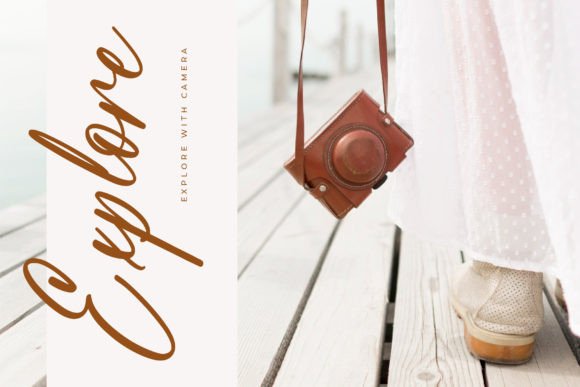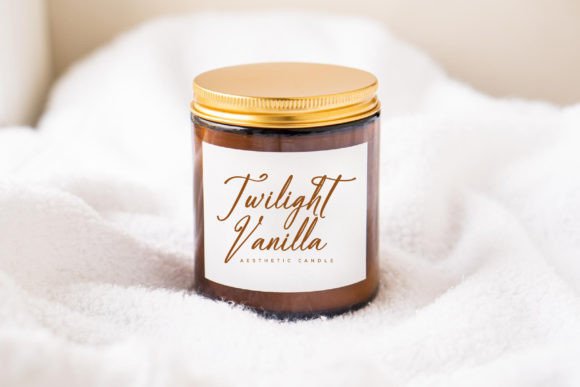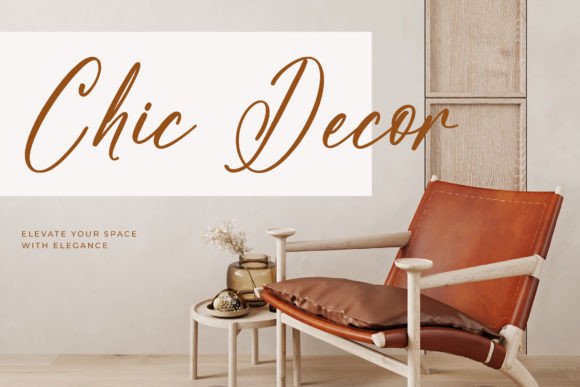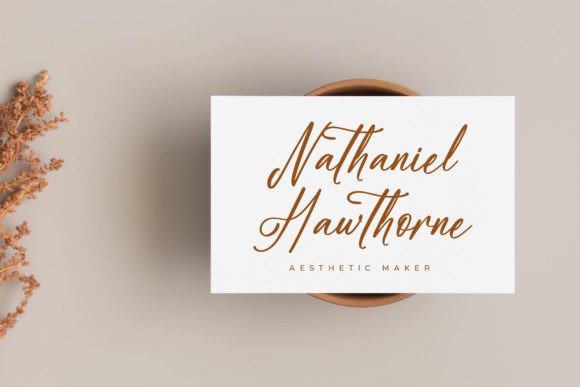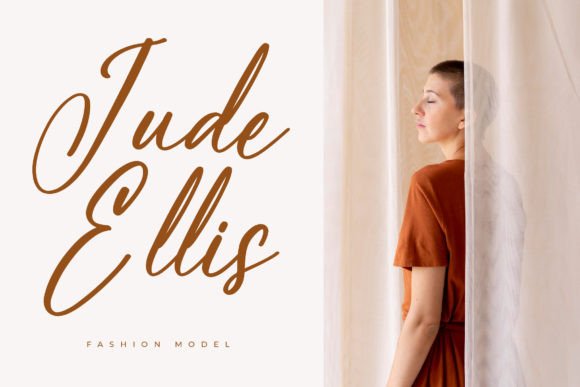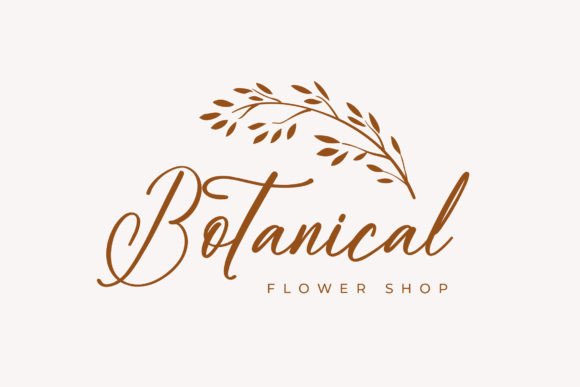
Celestialo Majestica Font: Elevate Your Designs with Luxury and Elegance
In the world of typography, a font can make or break a design. For designers and crafters seeking to add a touch of luxury and sophistication to their projects, the Celestialo Majestica Font is an exceptional choice. This modern freestyle script font, crafted by Letterena, is designed to bring a sense of elegance and refinement to a wide range of applications.
What is Celestialo Majestica Font?
Celestialo Majestica is a luxury script font that embodies the essence of modern freestyle typography. Its fluid, cursive strokes and intricate details make it a versatile and stylish addition to any design project. Whether you’re working on logos, branding projects, homeware designs, product packaging, or any other luxury and beautiful projects, this font is sure to impress.
Key Features of Celestialo Majestica Font
• Luxury Script Style: Celestialo Majestica boasts a sophisticated and elegant script style, perfect for creating high-end designs that exude luxury and refinement.
• Modern Freestyle Typography: This font’s modern freestyle approach allows for a high degree of creativity and flexibility, making it suitable for a wide range of design applications.
• Versatile and Adaptable: From logos and branding to packaging, textiles, and more, Celestialo Majestica can be used across various mediums and projects.
• High-Quality Design: Crafted with attention to detail, this font features clean lines, smooth curves, and a polished finish, ensuring a professional and premium look.
Use Cases for Celestialo Majestica Font
The versatility of Celestialo Majestica makes it suitable for a diverse array of design projects, including:
• Logos and Branding Projects: Create a lasting impression with a luxurious logo that sets your brand apart.
• Homeware Designs: Add a touch of elegance to home decor, stationery, and other household items.
• Product Packaging: Elevate your product’s packaging with a sophisticated and eye-catching design.
• Mugs, Quotes, Posters, and More: Bring a sense of luxury to everyday items, such as mugs, posters, and inspirational quotes.
• T-Shirts and Apparel: Create stunning and unique apparel designs that make a statement.
• Book Covers, Name Cards, and Invitation Cards: Add a touch of sophistication to book covers, name cards, and invitation cards.
• Greeting Cards and Labels: Create beautiful and elegant greeting cards and labels for special occasions.
• Photography and Watermarks: Use Celestialo Majestica as a watermark or overlay text for your photography projects.
Why Choose Celestialo Majestica Font?
With so many fonts available, why choose Celestialo Majestica? Here are a few compelling reasons:
• Unique and Distinctive: This font’s modern freestyle approach and luxurious script style make it stand out from more traditional fonts.
• Highly Versatile: Celestialo Majestica can be used across a wide range of design applications, from digital to print.
• Elegant and Sophisticated: This font’s refined and polished aesthetic makes it perfect for designers and crafters seeking to add a touch of luxury to their projects.
In conclusion, the Celestialo Majestica Font is an exceptional choice for designers and crafters seeking to elevate their designs with a touch of luxury and elegance. Its modern freestyle script style, versatility, and high-quality design make it suitable for a wide range of applications. Whether you’re working on logos, branding projects, or any other design project that requires a sophisticated and refined aesthetic, Celestialo Majestica is sure to impress.